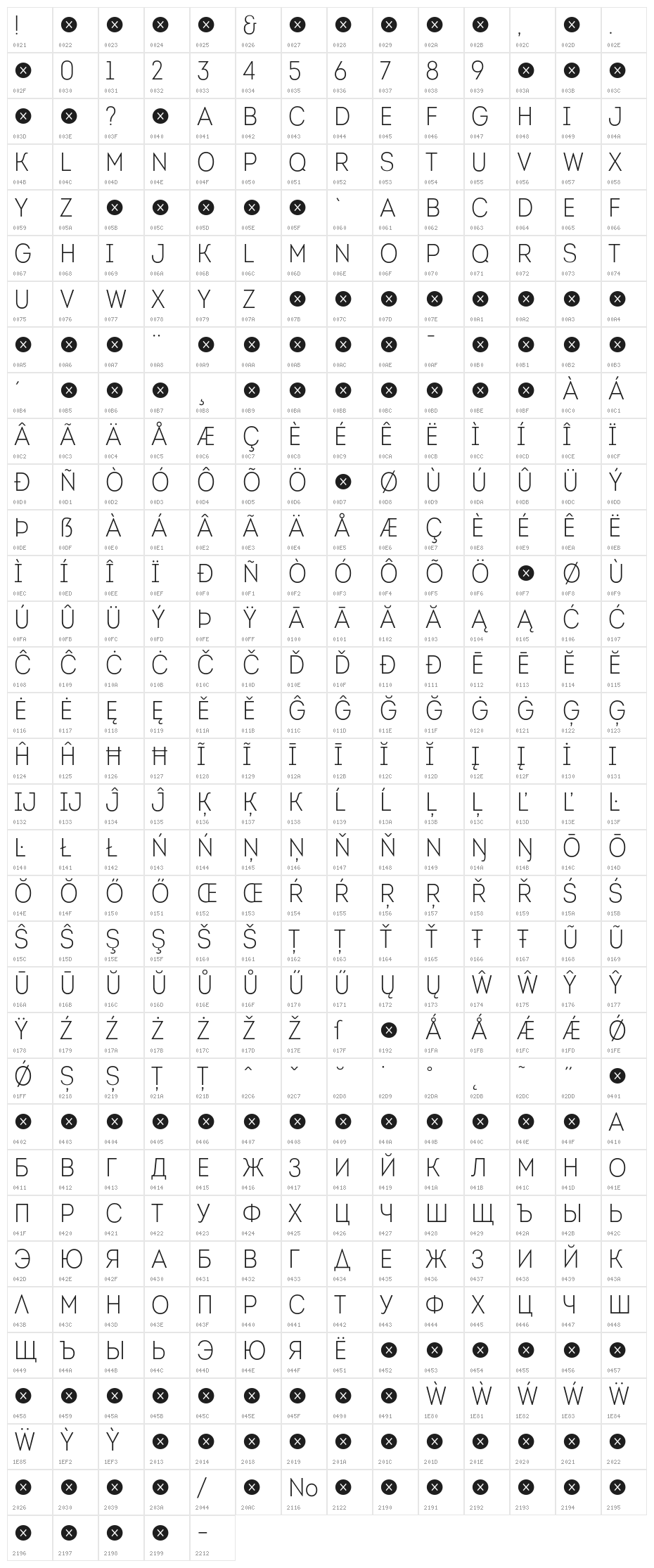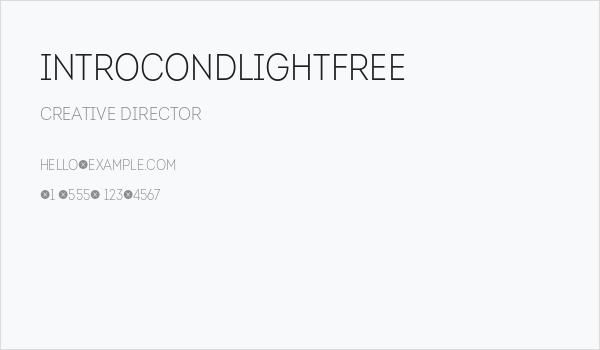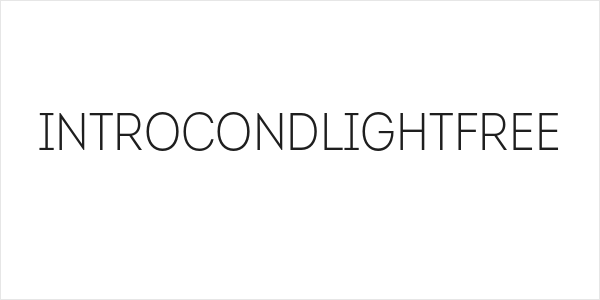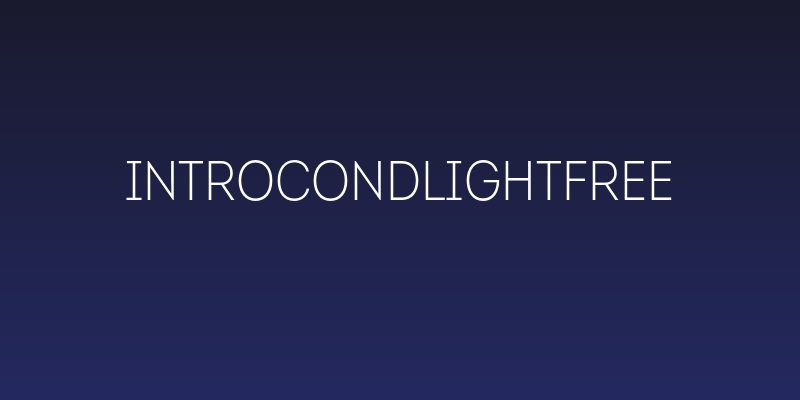
IntroCondLightFree Font
| Progetti proposti | Ideal for branding, editorial design, web design, and advertising where a modern and clean look is desired. |